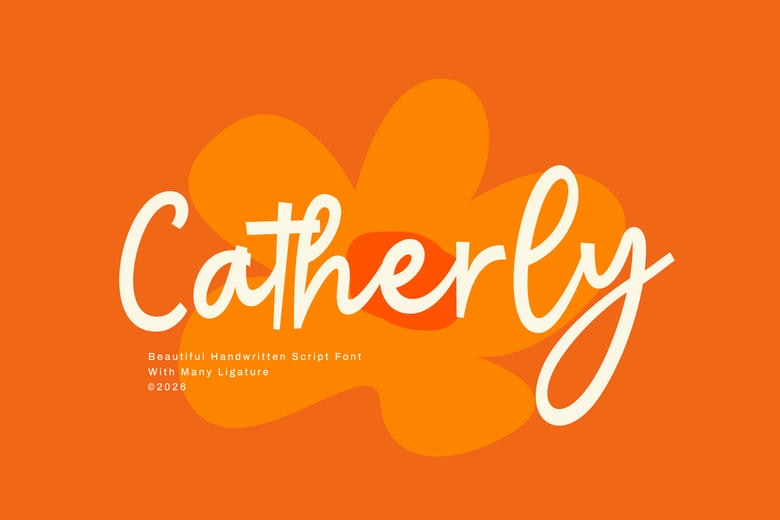
Catherly Font
Catherly is a beautiful handwritten script font that brings the easy elegance of natural handwriting together with a soft, modern feel. Its flowing strokes, graceful curves, and connected letters give it a unique style.
Catherly has a warm and inviting look that feels authentic, stylish, and charming. Each character is designed to create a smooth handwritten rhythm, helping your designs feel personal and memorable.
Catherly Handwritten Script Font